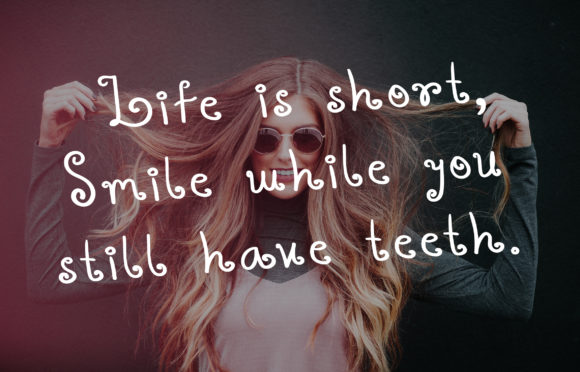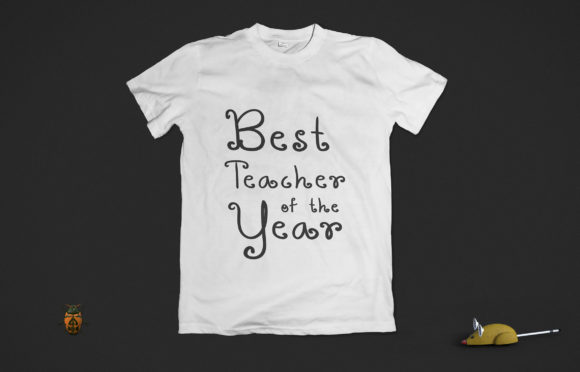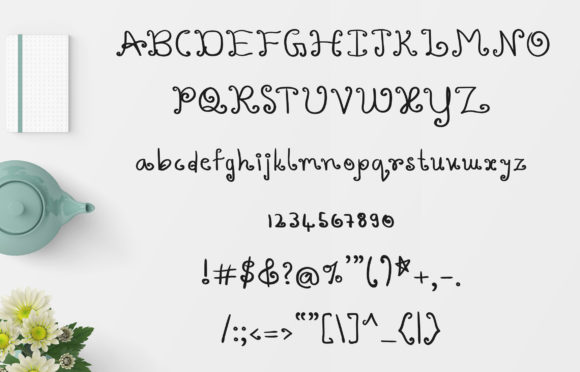
HomeScript FontsVarshuma Font Script Fonts Varshuma Font FacebookXPinterestWhatsApp Varshuma Font Poster 2 Varshuma Font Poster 3 Varshuma Font Poster 4 About Varshuma Font Varshuma is a handwritten swirly font with a playful and romantic vibe. Get inspired by its unique charm! DOWNLOAD ON CREATIVE FABRICAThis font is sold and delivered by Creative Fabrica. Font Canyon may earn a commission if you buy through this link. People also explored Lady Frederick Font Palmer Font Regars Font Loverin Font Breather Ageritta Font Monoline Signature Font Pixabye Font Karrttela Font 295 0 TagsVarshuma Font Previous articleThe Rotterdam City FontNext articleDear Nathan Font LEAVE A REPLY Cancel reply Comment: Please enter your comment! Name:* Please enter your name here Email:* You have entered an incorrect email address! Please enter your email address here Website: Save my name, email, and website in this browser for the next time I comment. Personal Use Free Oatmeal Personal Use Free Read more about this font Jelly Fish Personal Use Free Read more about this font Sarwendah Personal Use Free Read more about this font Wintersoul Personal Use Free Read more about this font BLOG The 10 Best Handwriting Fonts to Add Personality to Your Designs 10 of the Best Handwriting Fonts for Adding Personality to Your Designs There will undoubtedly be no other better choice than handwriting fonts to give... Free vs Paid Fonts: Why Investing in Premium Fonts Is Worth It Using Fonts in Digital Marketing: Tips to Strengthen Your Brand Identity Best Fonts for T-Shirt Design – Top 2025 Picks